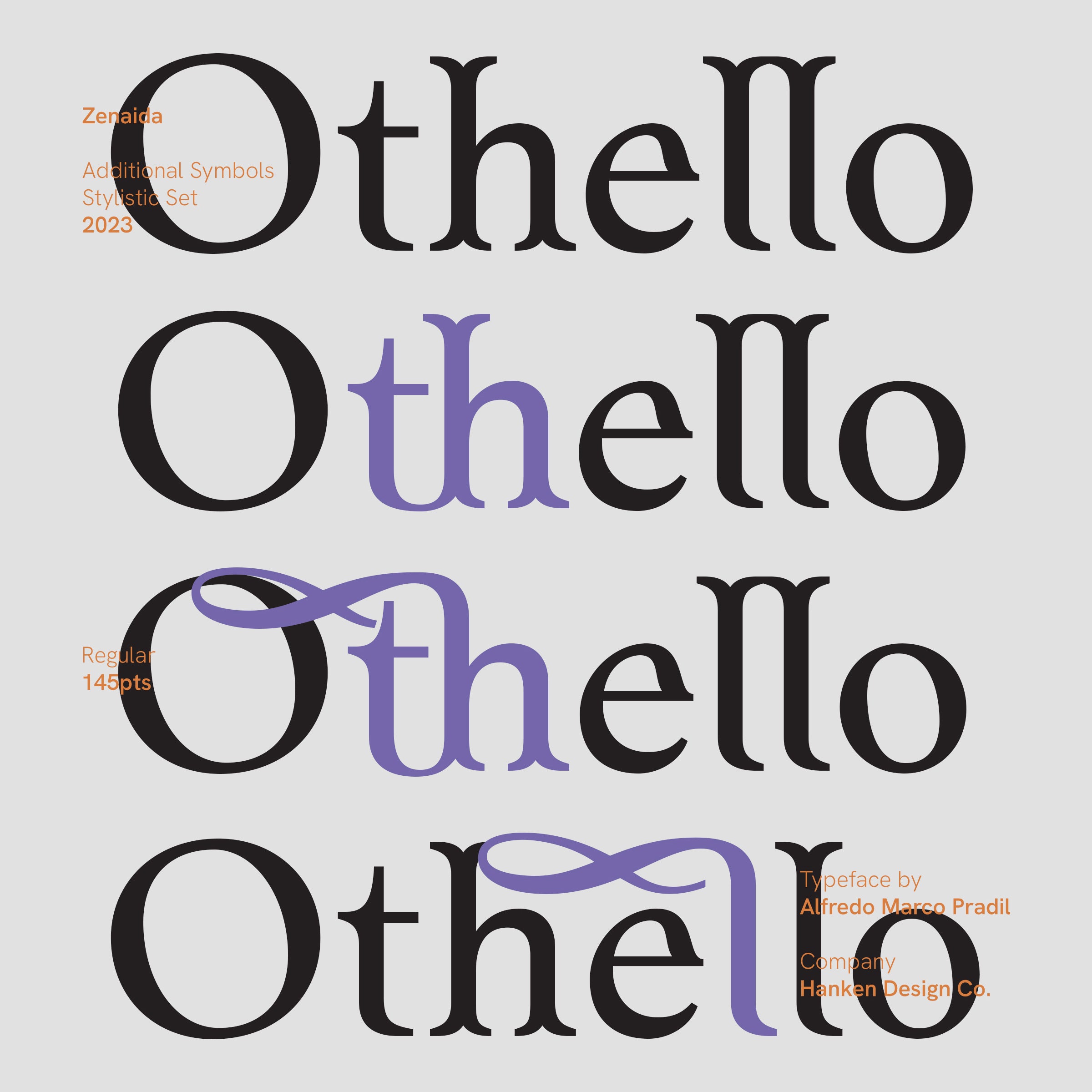
Font Update: Zenaida Display Typeface
by Alfredo Marco Pradil
Unlock New Design Possibilities with Zenaida's Latest Update
We're thrilled to introduce an exciting update for Zenaida!
With the addition of a semibold weight, you'll have a wider range of design possibilities at your fingertips. What's more, we've also incorporated beautifully crafted ligatures and stylistic alternates to enhance your typographic options.